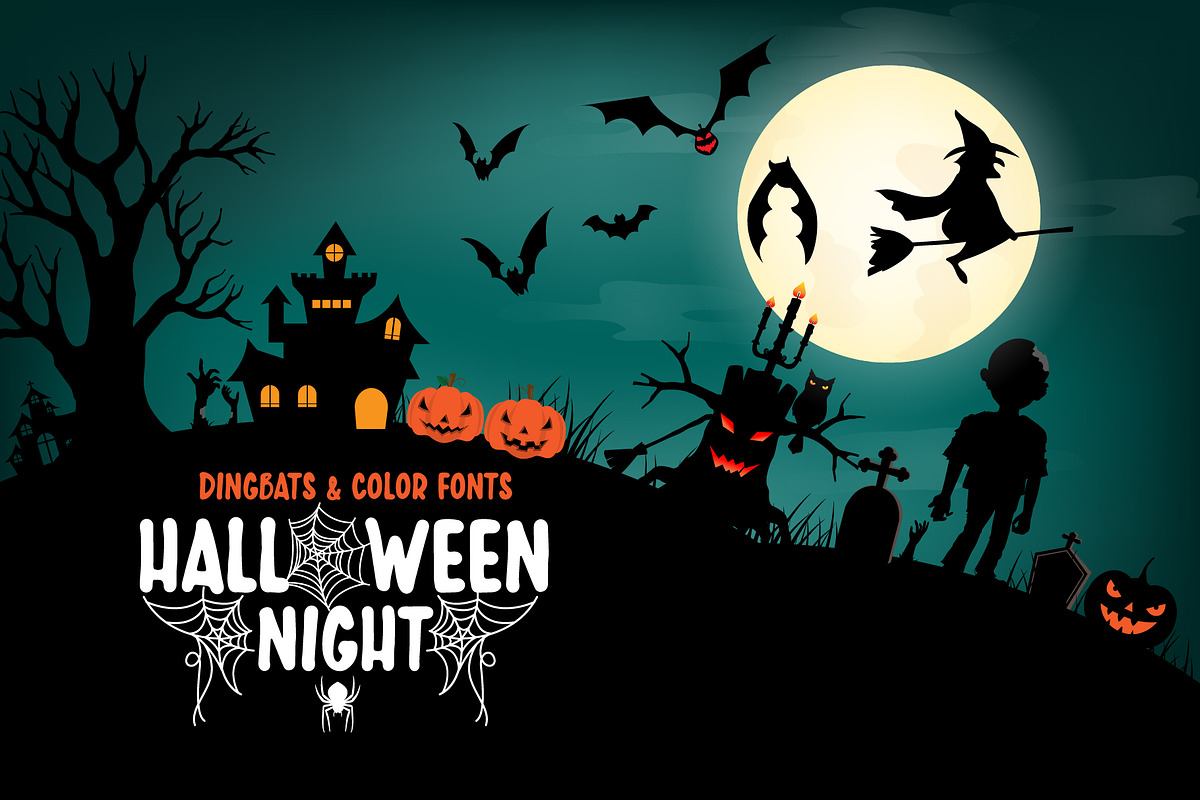
Halloween Night Dingbats & Color Font Free Download is a spooky-cute typeface packed with Halloween-themed icons and colorful characters. Perfect for party invites, spooky crafts, kids’ Halloween activities, classroom décor, and seasonal packaging, this font gives you instant access to playful ghosts, pumpkins, bats, and more—ready to drop into your design like magic.
Using the Halloween Night Dingbats & Color Font Free Download adds personality and fun to your projects without needing extra graphics. Whether you're creating digital stickers, holiday merch, or themed social posts, this font makes your Halloween content pop with charm and creativity.